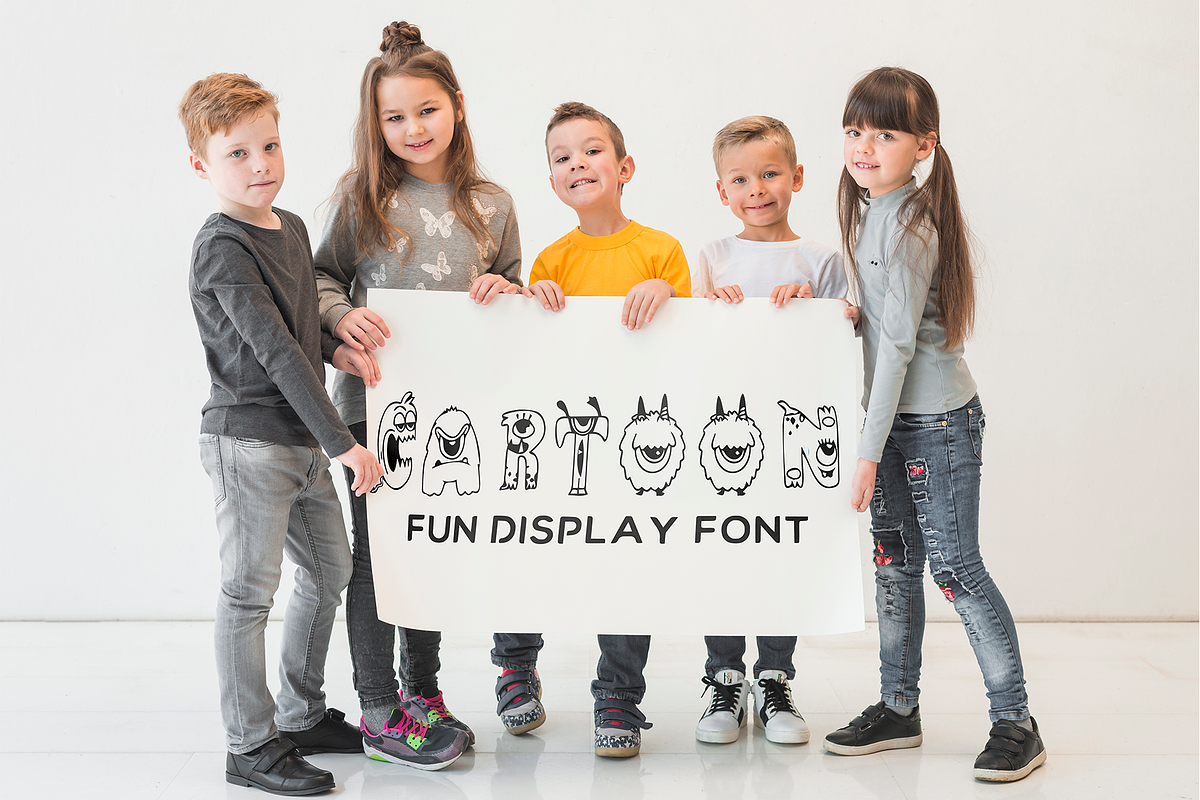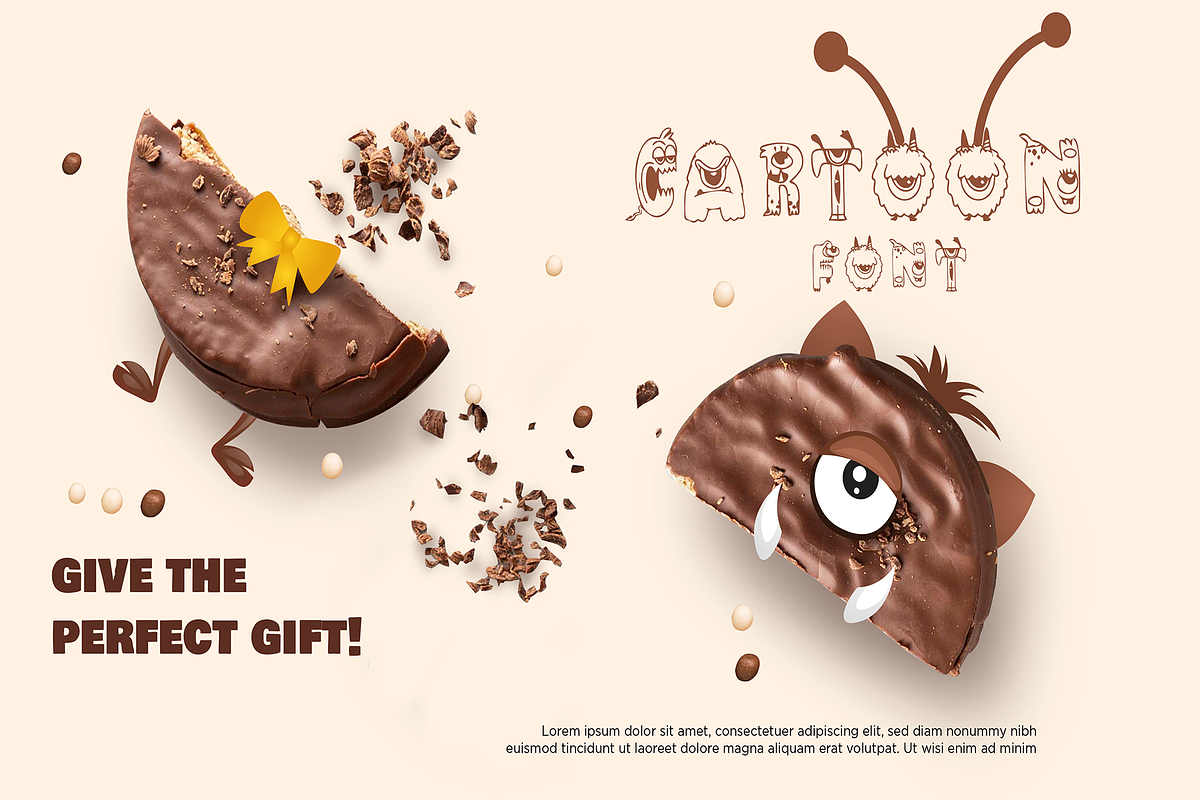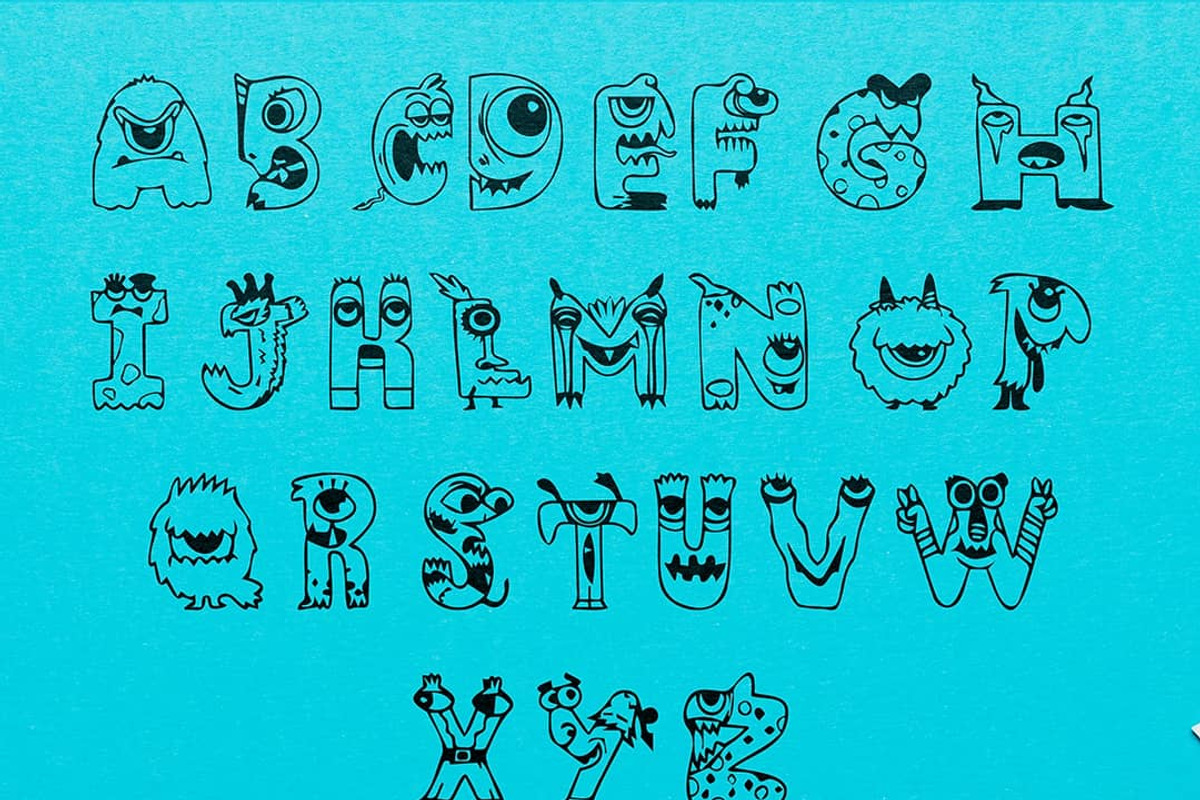
Cute Monsters
Monsters a cool, fun and uniquely designed decorative font. Whether you’re using it for crafting, digital designing, presentations or greeting cards making, it’s perfect!